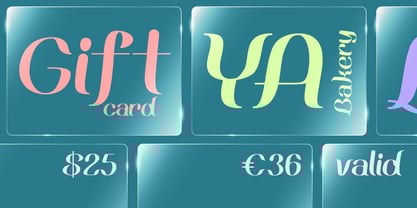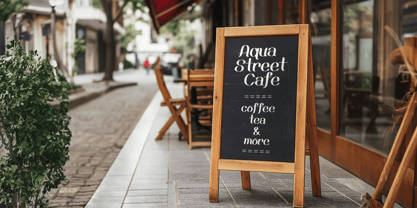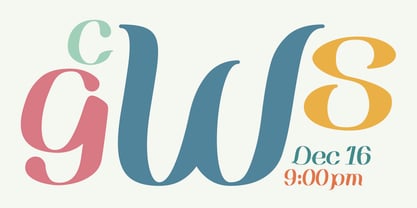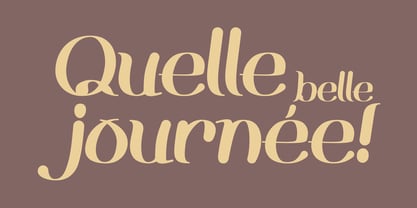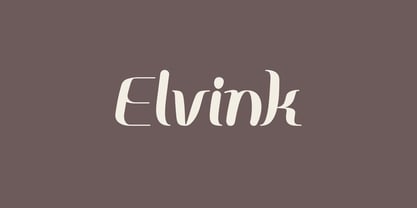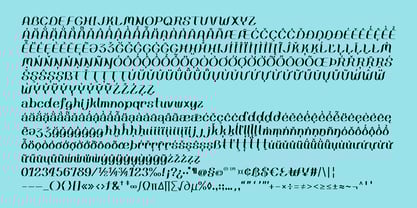
Elvink
by Outerend
The Elvink Font Family was designed by Taka Ikari and published by Outerend. Elvink contains 1 styles.
Introducing ‘Elvink,’ a modern display sans serif font that seamlessly blends a slight handwritten feel with playful, interesting strokes. Its charming character makes it perfect for branding and seasonal events, adding a cute and approachable touch to your designs. Ideal for everything from invitations to product packaging, ‘Elvink’ brings a unique personality that stands out while maintaining a clean, contemporary aesthetic. Elevate your projects with this delightful font!
Designers: Taka Ikari
Publisher: Outerend
Foundry: Outerend
Design Owner: Outerend